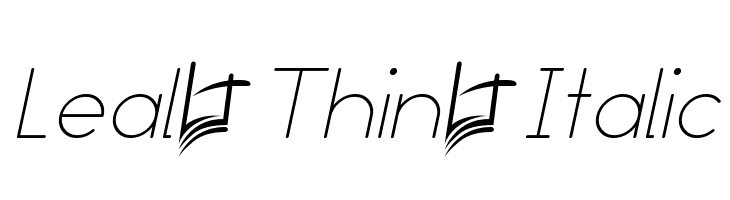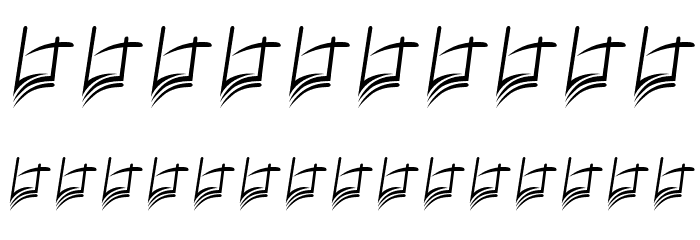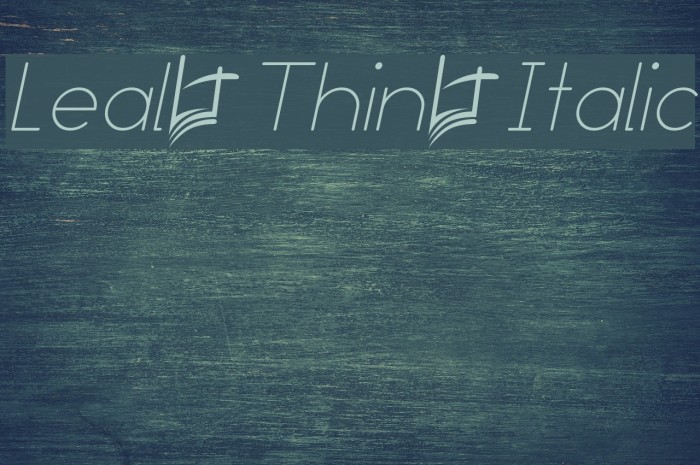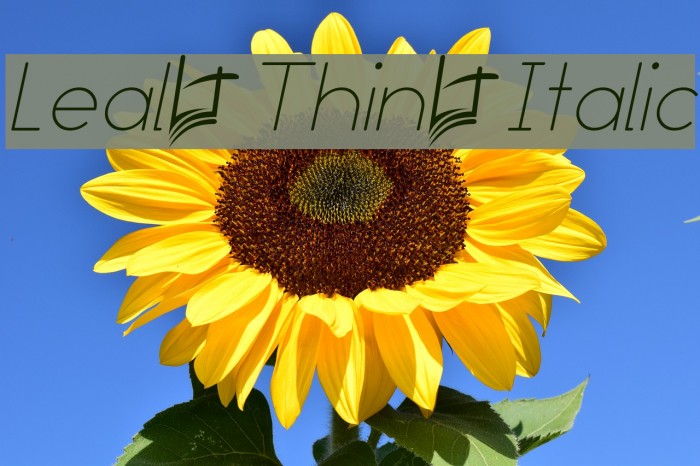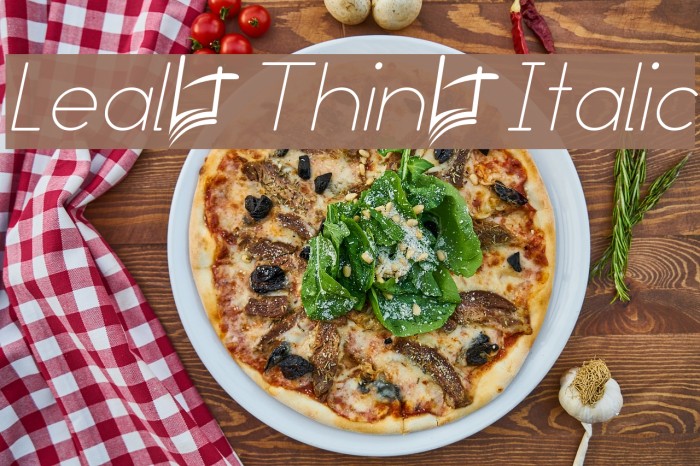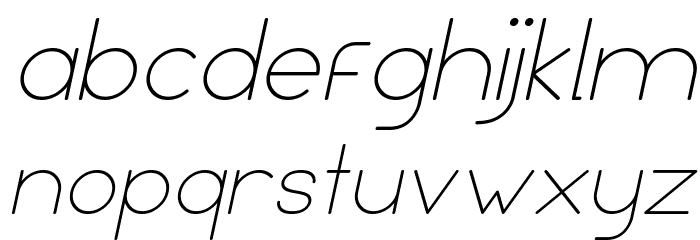
Leal Thin Italic Font
This font features a sleek and elegant design with a thin, italicized style. The characters are elongated and slightly slanted, giving a sense of motion and fluidity. The strokes are consistent in thickness, providing a uniform appearance across all letters. The uppercase and lowercase letters maintain a harmonious balance, with rounded edges that soften the overall look. The numerals are clear and legible, matching the style of the alphabet. Special characters are included, maintaining the same thin and italicized characteristics. This font exudes a modern and sophisticated feel, ideal for projects that require a touch of elegance.
A sleek, thin, and italicized font with a modern and elegant style.
• Category: Sans-Serif
• Bold: No
• Italic: Yes
• Weight: Light
• Width: Normal
• Character Spacing: Normal
• Contrast: Low
• Overall Style: Modern
• Use Case: Headlines, Logos, Invitations